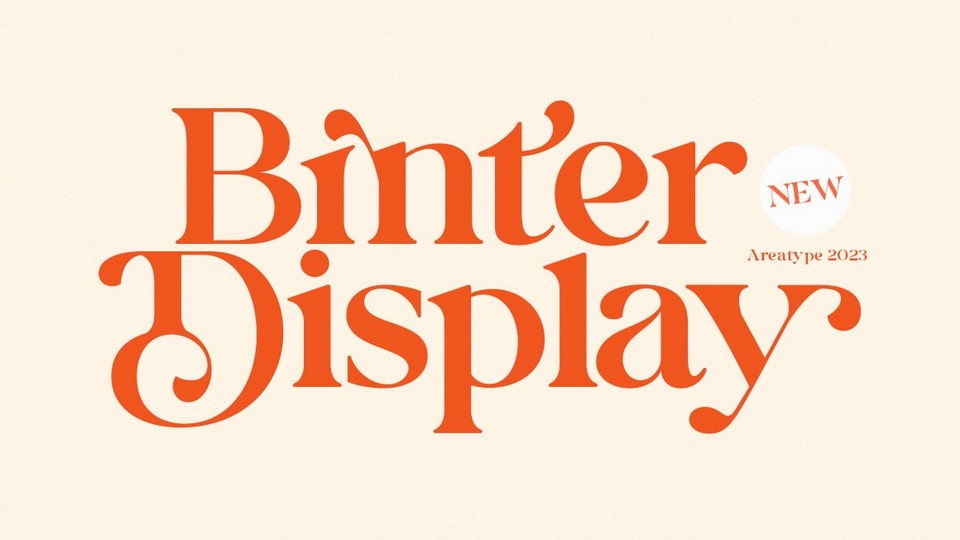
Download Binter Display font, an attractive and beautiful typeface that exudes sophistication and charm. Its classic, refined letters are inspired by traditional typography.